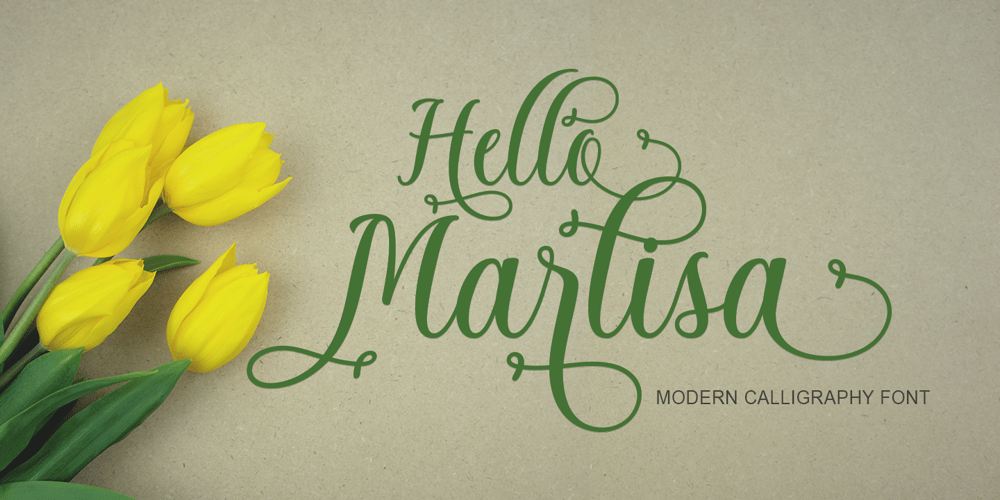
Hello Marlisa
Hello Marlisa font
Hello Marlisa Font Family was designed by Yur Lis and published by Stripes Studio. Hello Marlisa contains 1 styles and family package options. Hi, Introducing the latest styles Hello Marlisa Script with the kind of modern hand scratches, I hope you are interested in this font, if you want to use for your work this font can be used easily and simply because there are a lot of features in it to contain a complete set of letters lower and uppercase letters, assorted punctuation, numbers, and multilingual support. font also contains several ligatures and alternate style Stylistic.